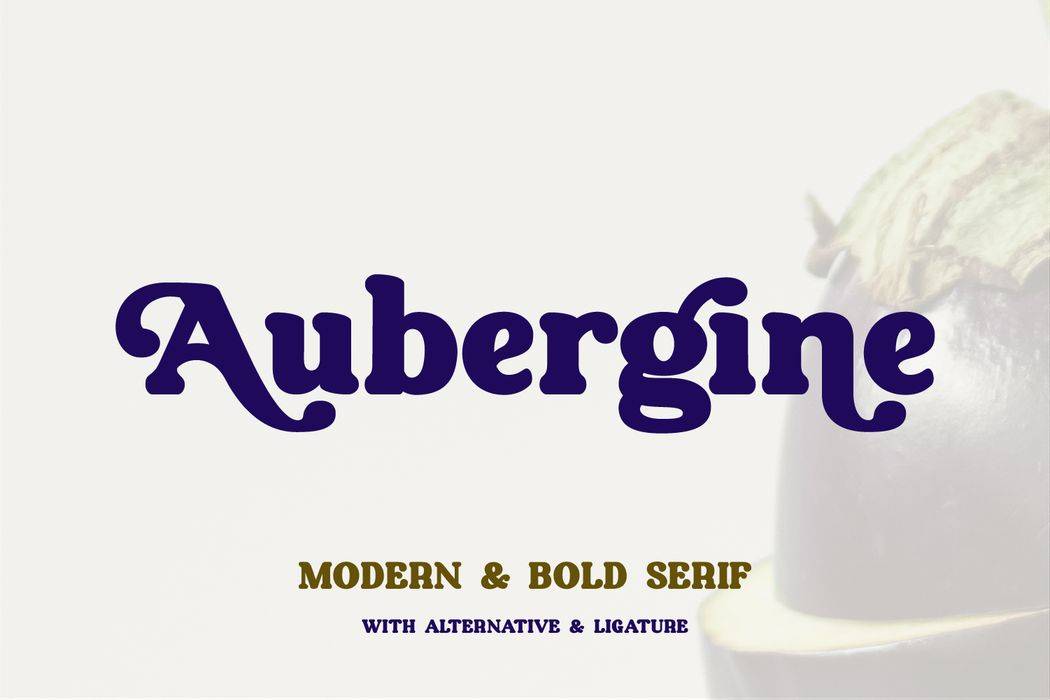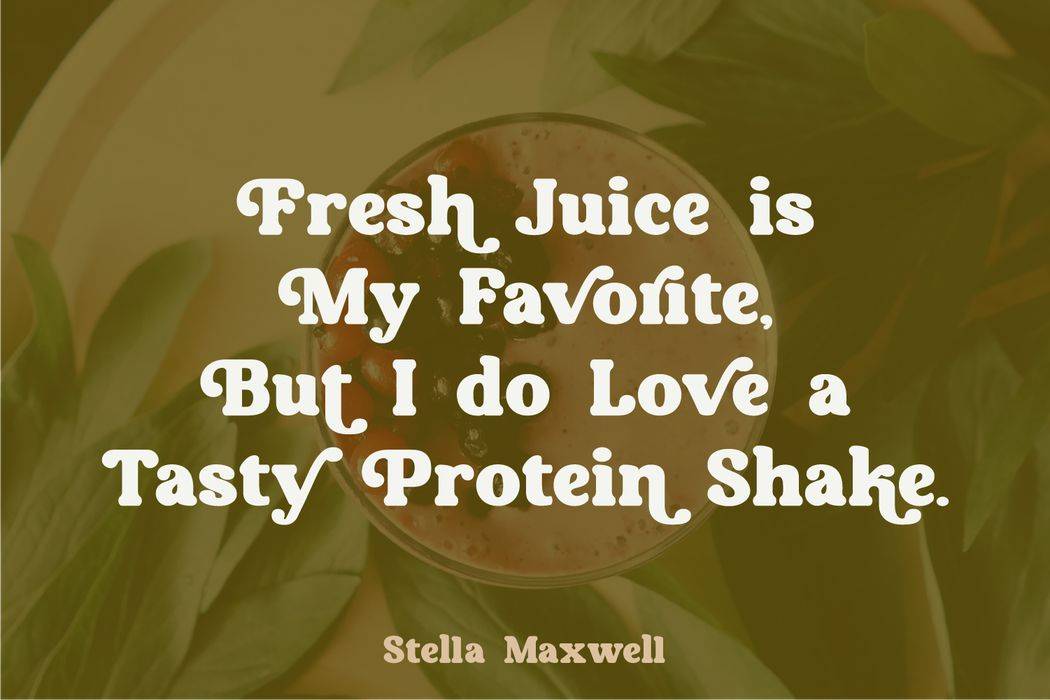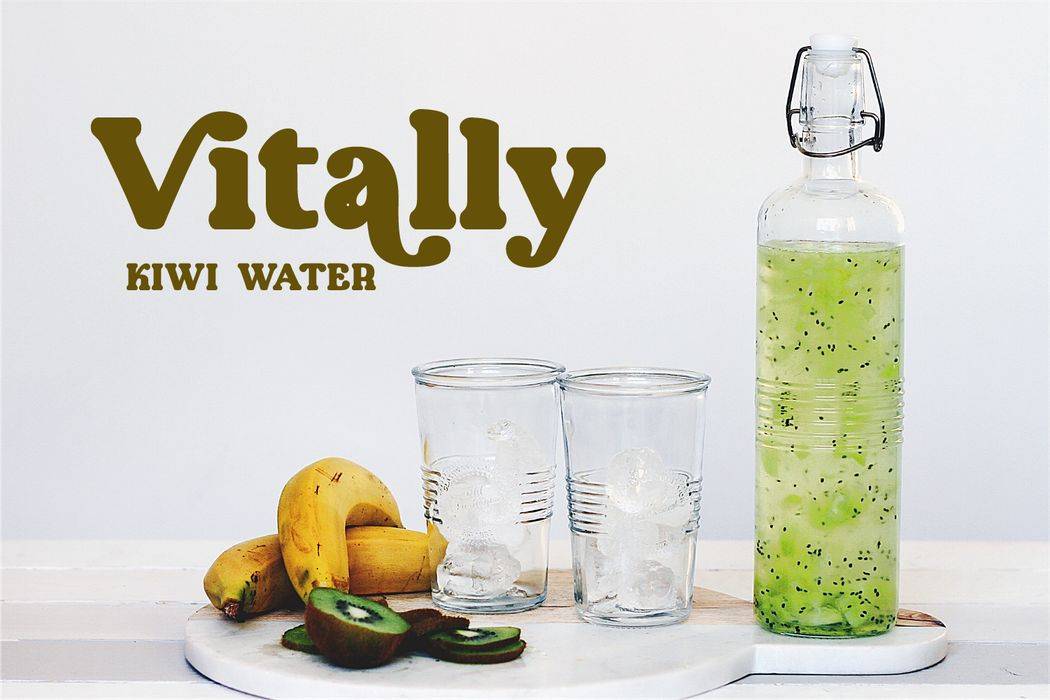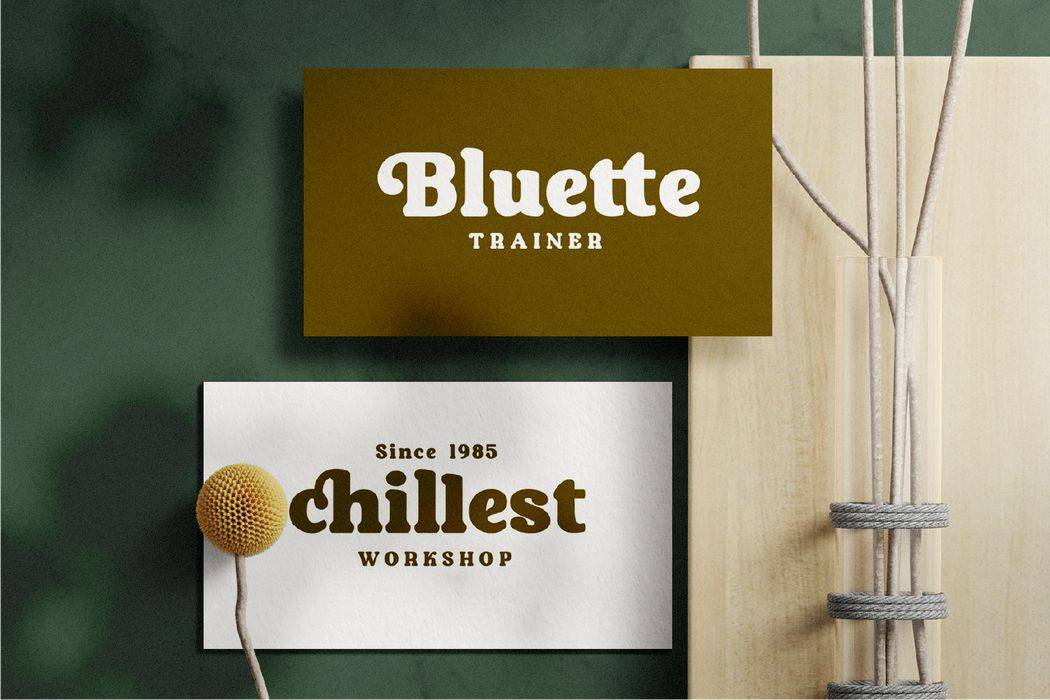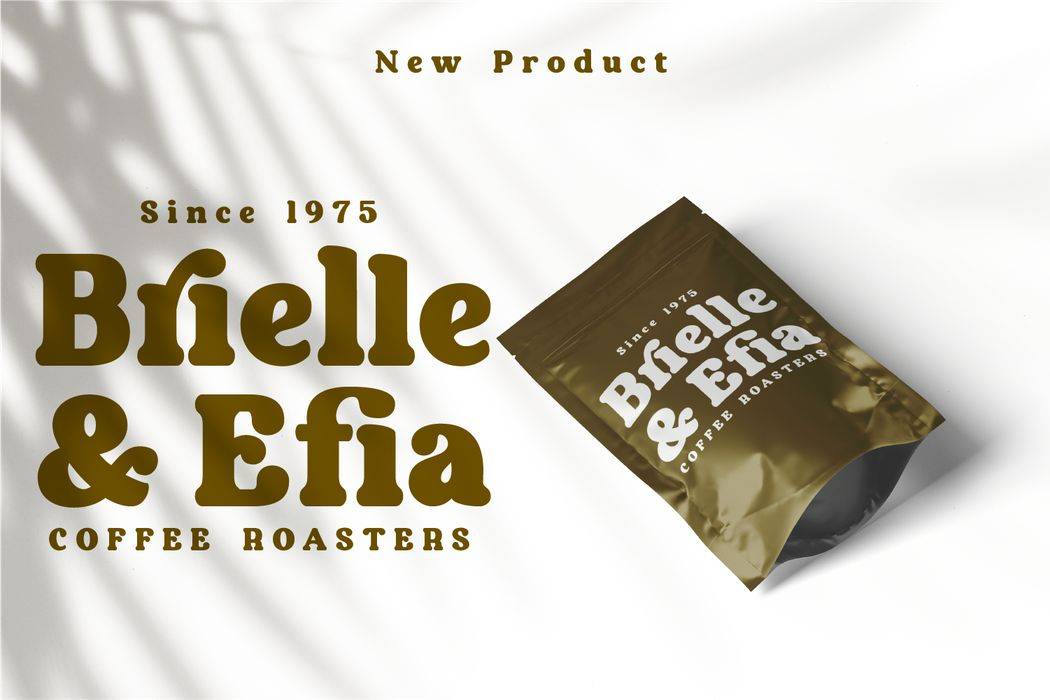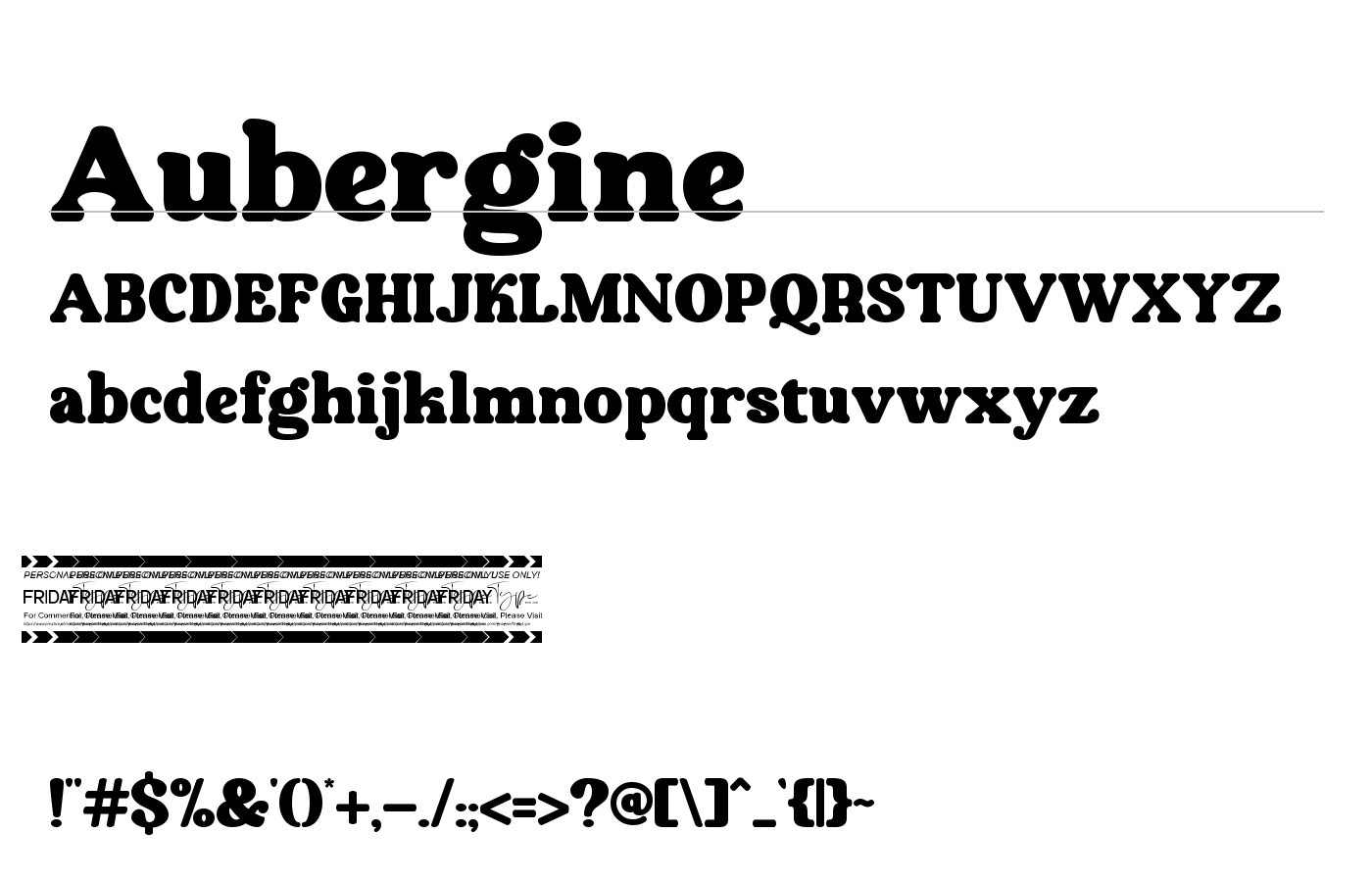
Aubergine is a bold, slab serif font with a strong, friendly presence thanks to its thick, rounded serifs and consistent stroke weight. Its medium-to-high x-height and slightly condensed letterforms make it highly readable while exuding a vintage yet approachable charm, perfect for headlines, branding, and packaging that aim to stand out with personality and warmth. This font works well in designs that seek a confident, playful, and nostalgic touch without sacrificing clarity.
Aubergine Font
About Aubergine Font
| Font family | Aubergine Font |
| Release date | 2021-11-05 |
| Designer | Farida Kurniawan |
| Trademark | Fridaytype |